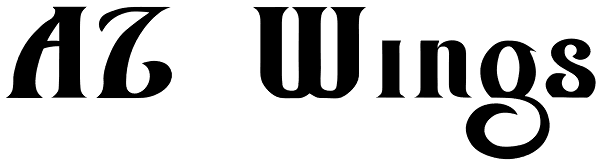
AZ Wings
AZ Wings font has some inspiration from an old "Gull Wing Trucks" Skateboard sticker and also borrows from blackletter styles, but for the most part is is completely original. This font was designed solely for use as a headline with unique...